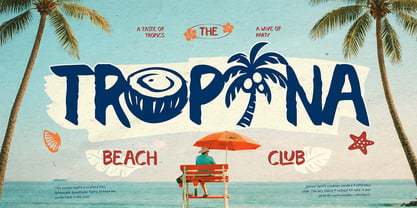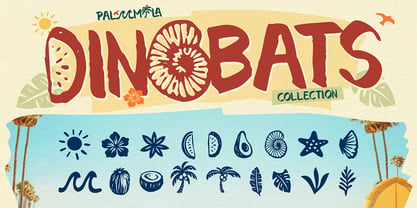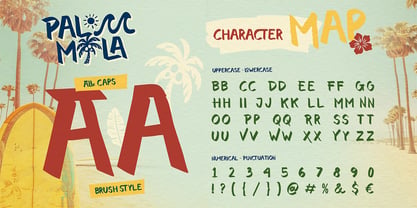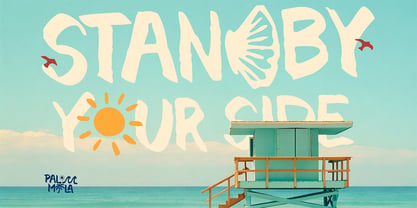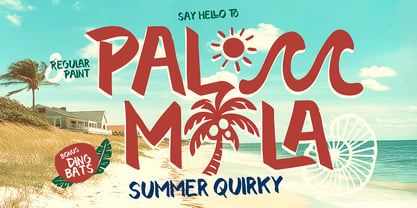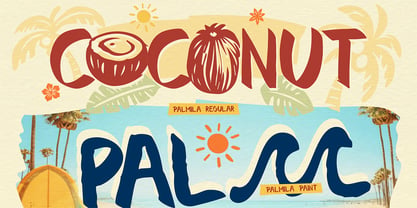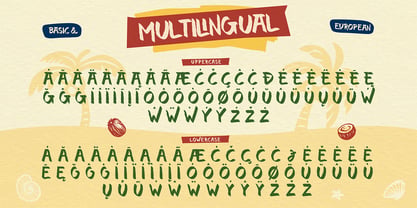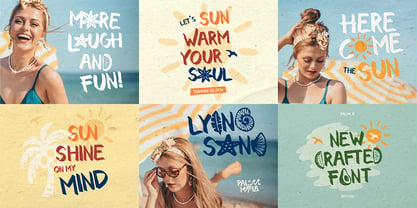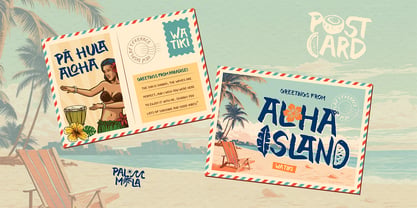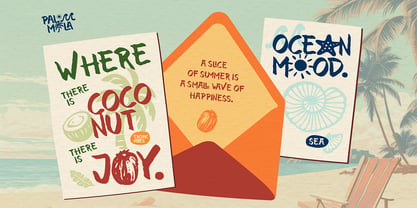
Palmila
by Artisan Themes
The Palmila Font Family was designed by Meidy Meichico and published by Artisan Themes. Palmila contains 2 styles and family package options. More about this family
Meet Palmila, a playful summer display font that instantly brings tropical vibes to your designs. With its bold brush style and quirky hand-painted feel, Palmila is made to stand out, fun and warm. What makes Palmila truly special is its adorable stylistic alternates. Several characters transform into tropical-inspired shapes like coconuts, palm trees, sun elements, and more, giving your typography a lively summer twist without needing extra graphics. These built-in alternates make it super easy to create eye-catching, beach-ready lettering that feels custom and full of charm. Perfect for projects that need a relaxed, sunny, and cheerful mood. Ideal for summer branding, beach and tropical posters, packaging design, social media graphics, t-shirt design, kids & fun projects, logo and headline display.